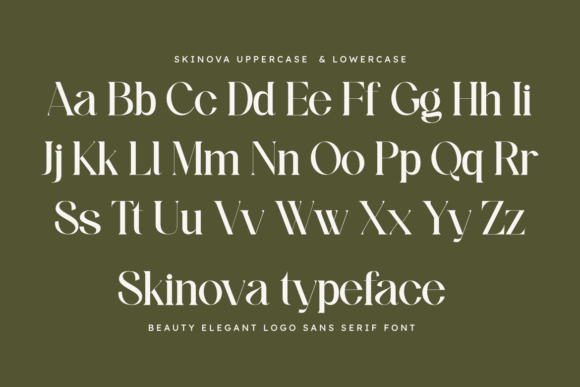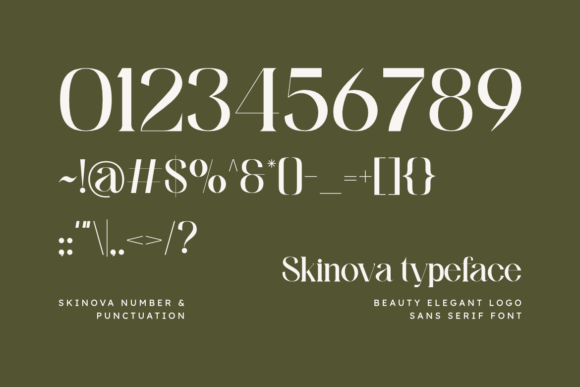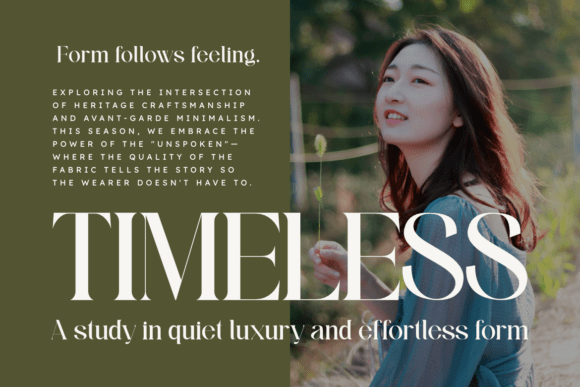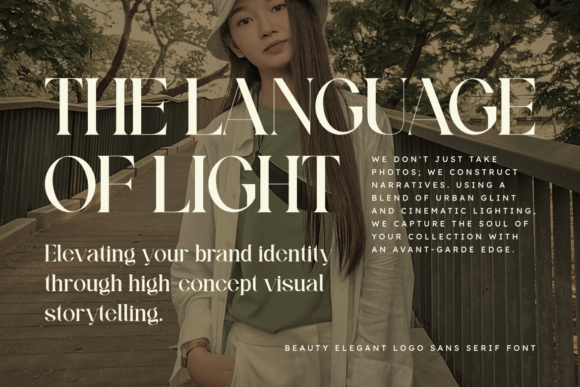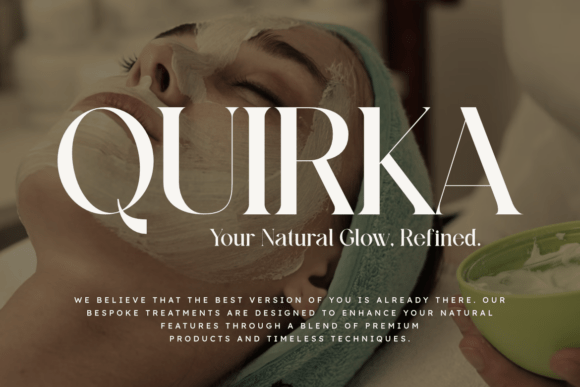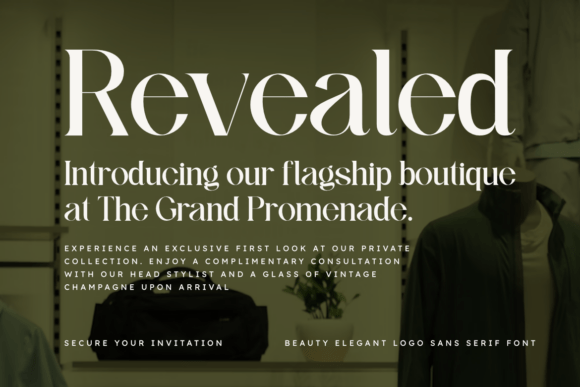
Introduction to Skinova Font
Skinova is a sophisticated sans serif font designed with a blend of modern elegance and natural beauty.
Characterized by its unique high-contrast strokes and soft curves, this typeface is specifically crafted to elevate luxury branding, fashion editorials, and cosmetic packaging The balanced proportions and clean lines make it highly versatile for both large-scale displays and smaller body text.
Key Features of Skinova Font